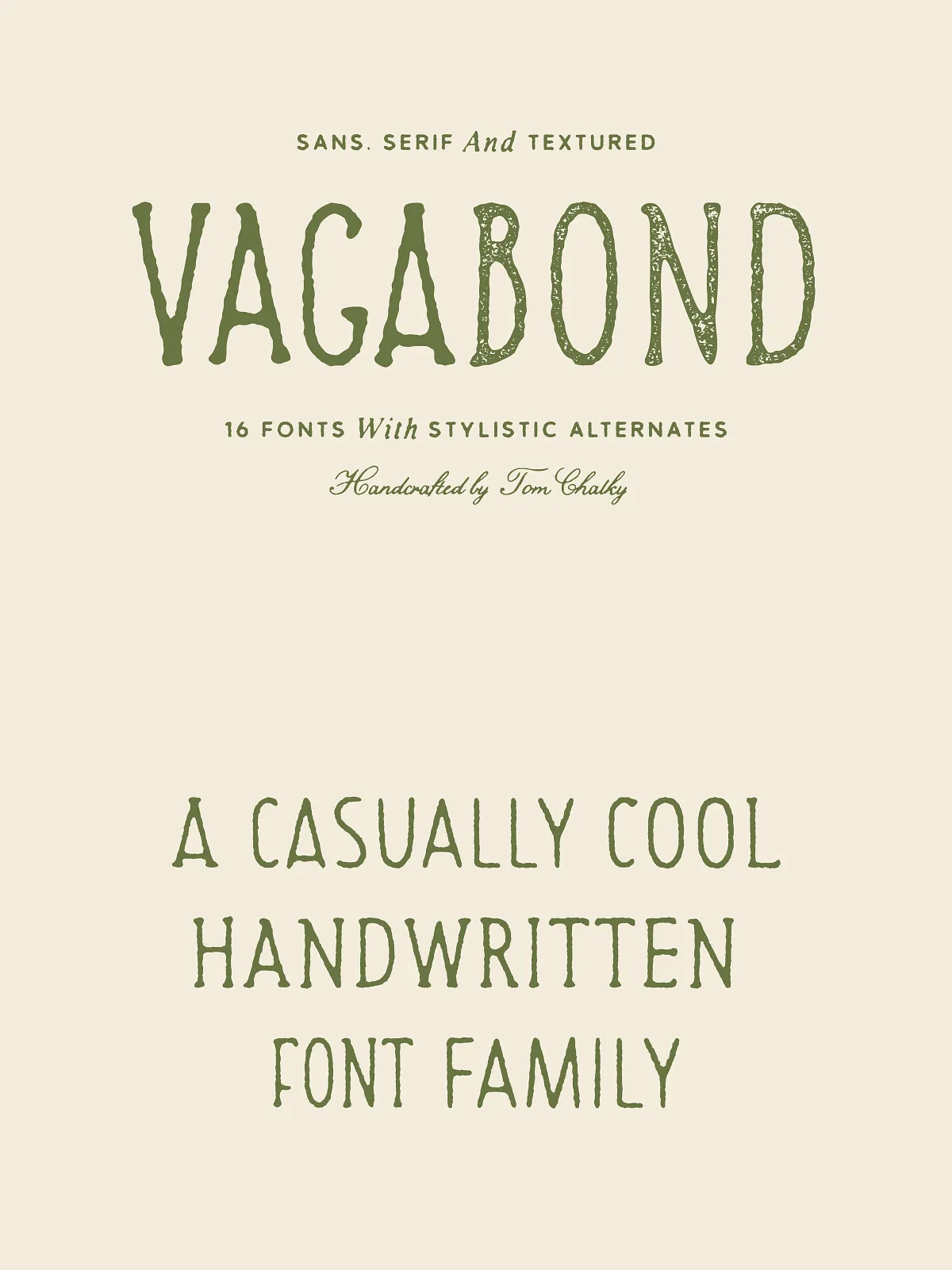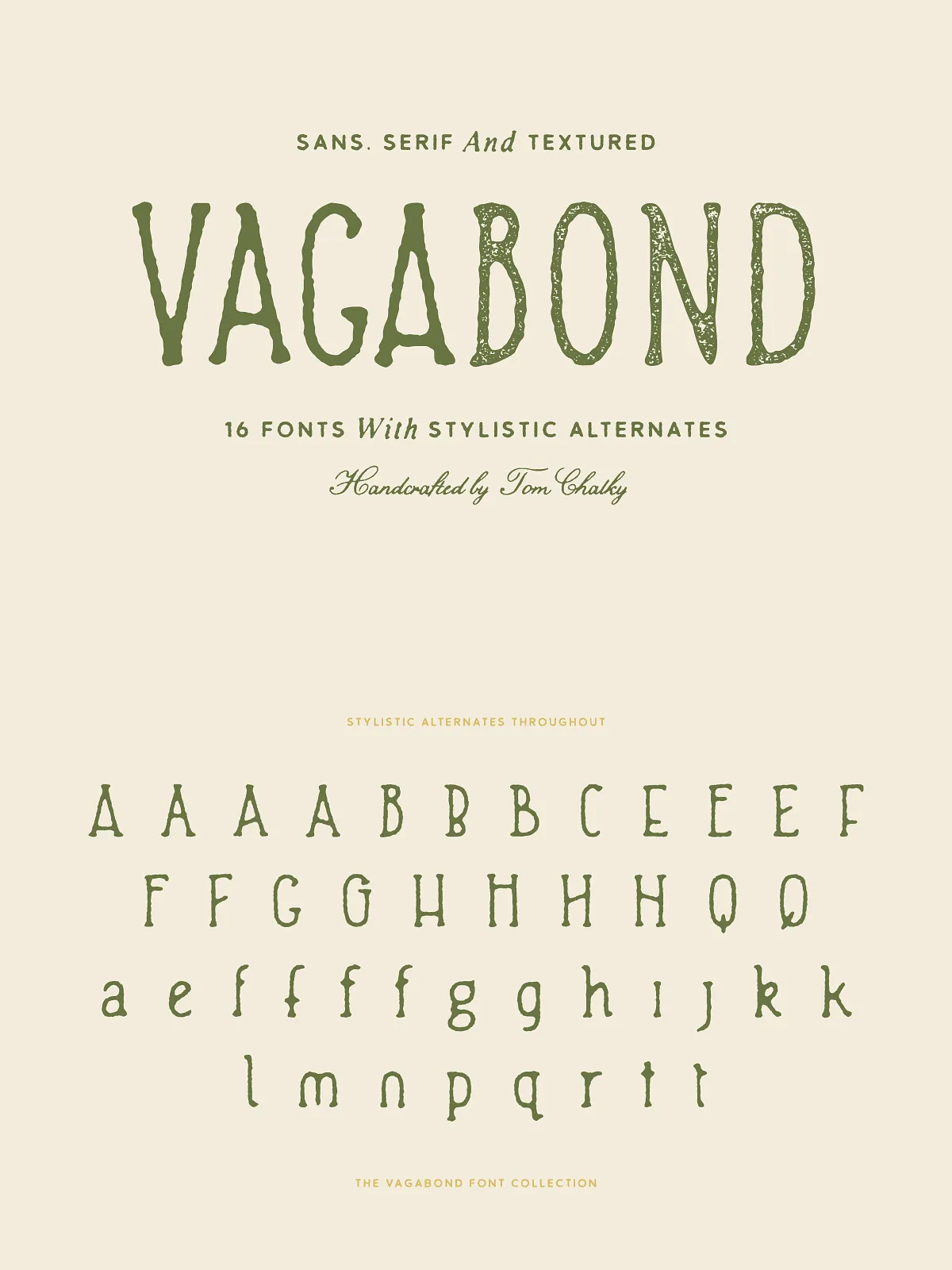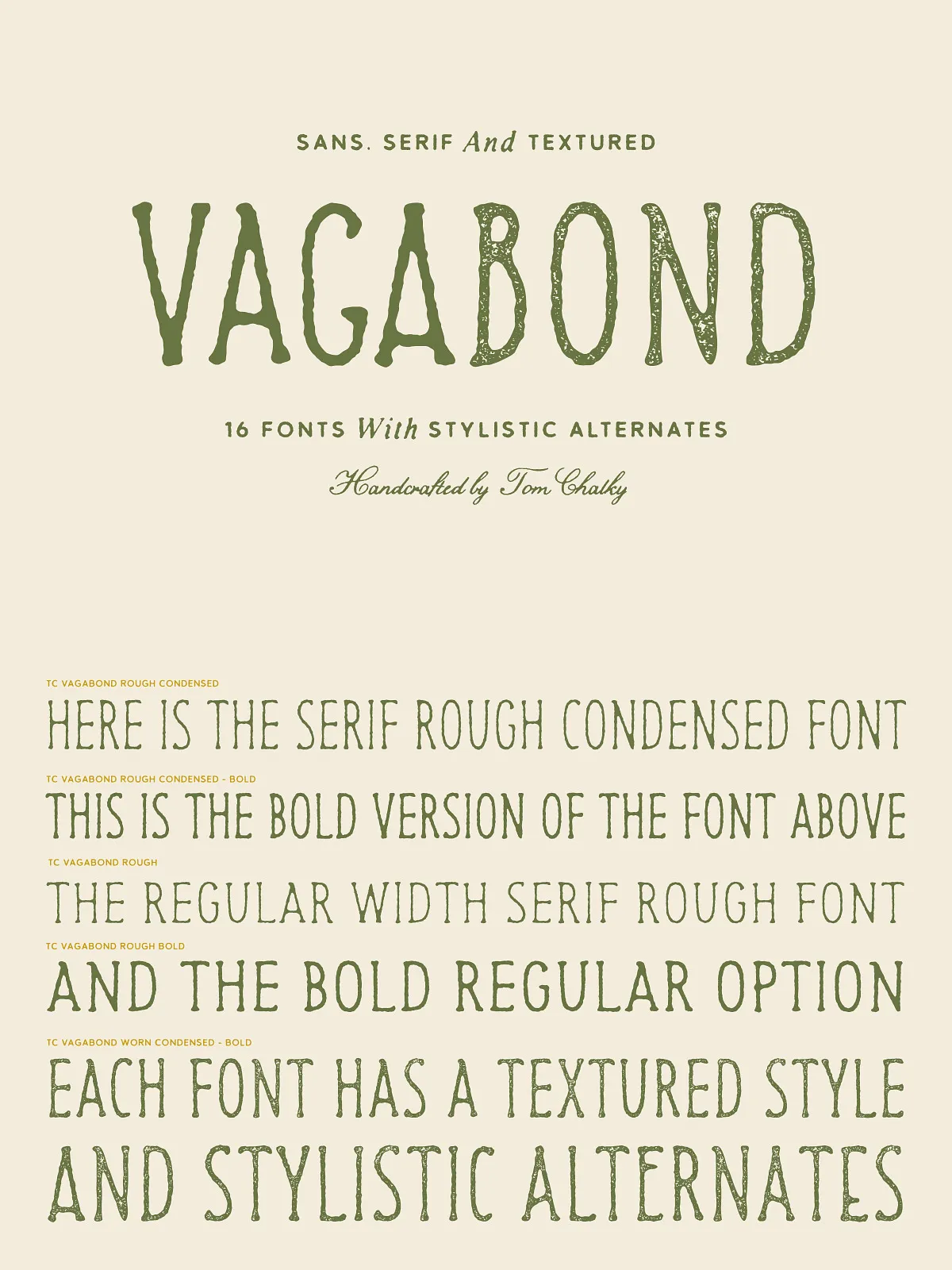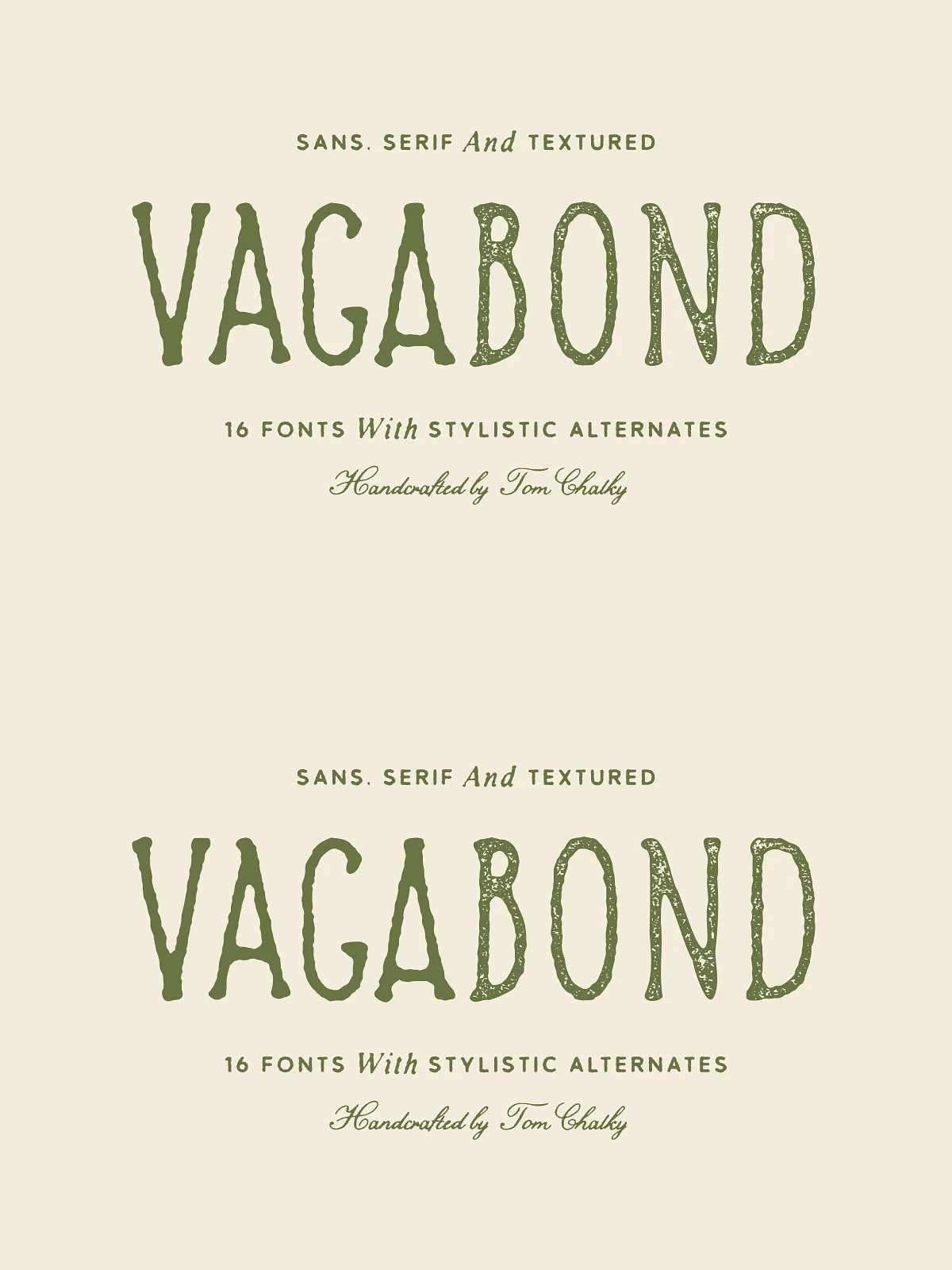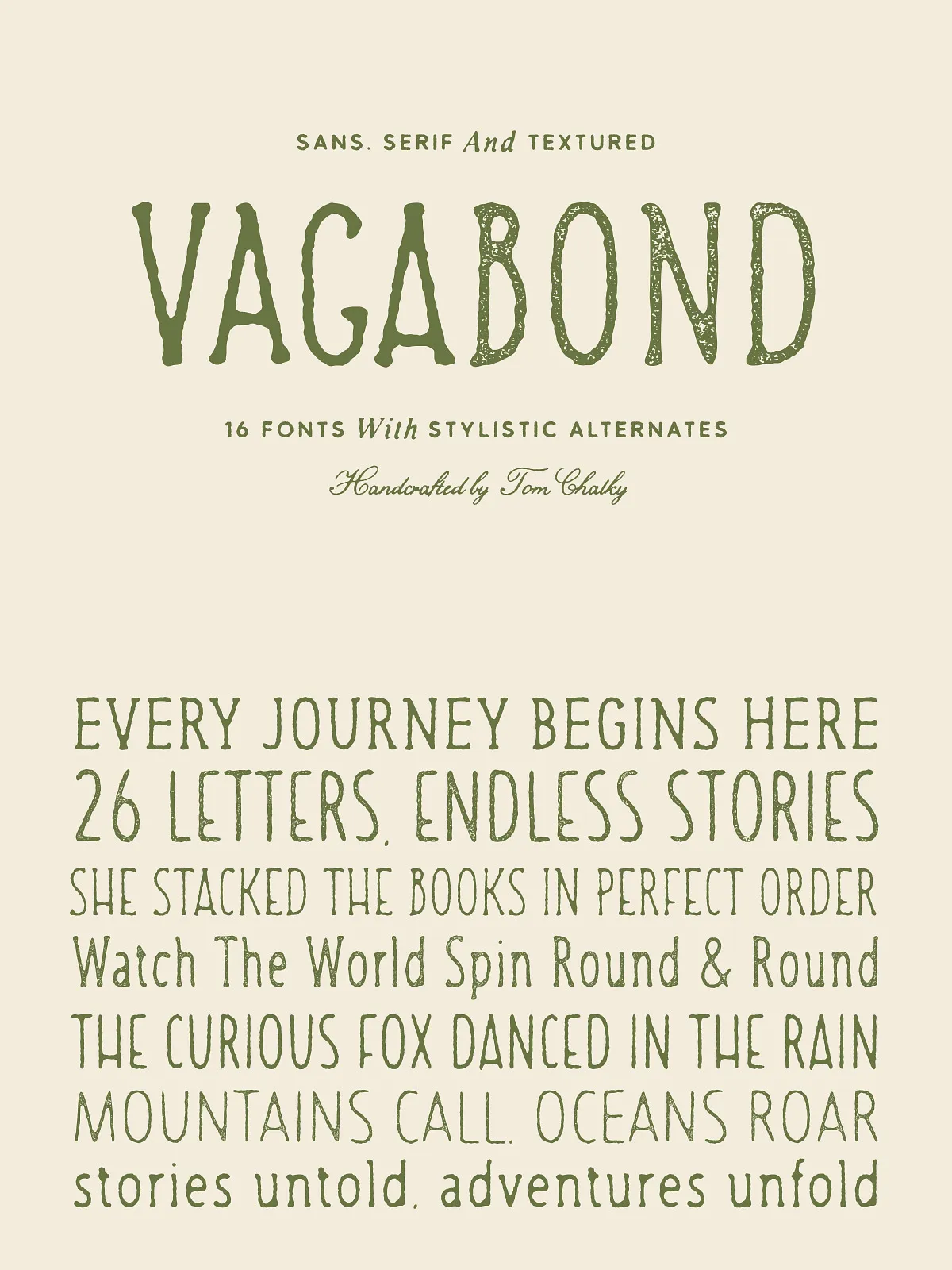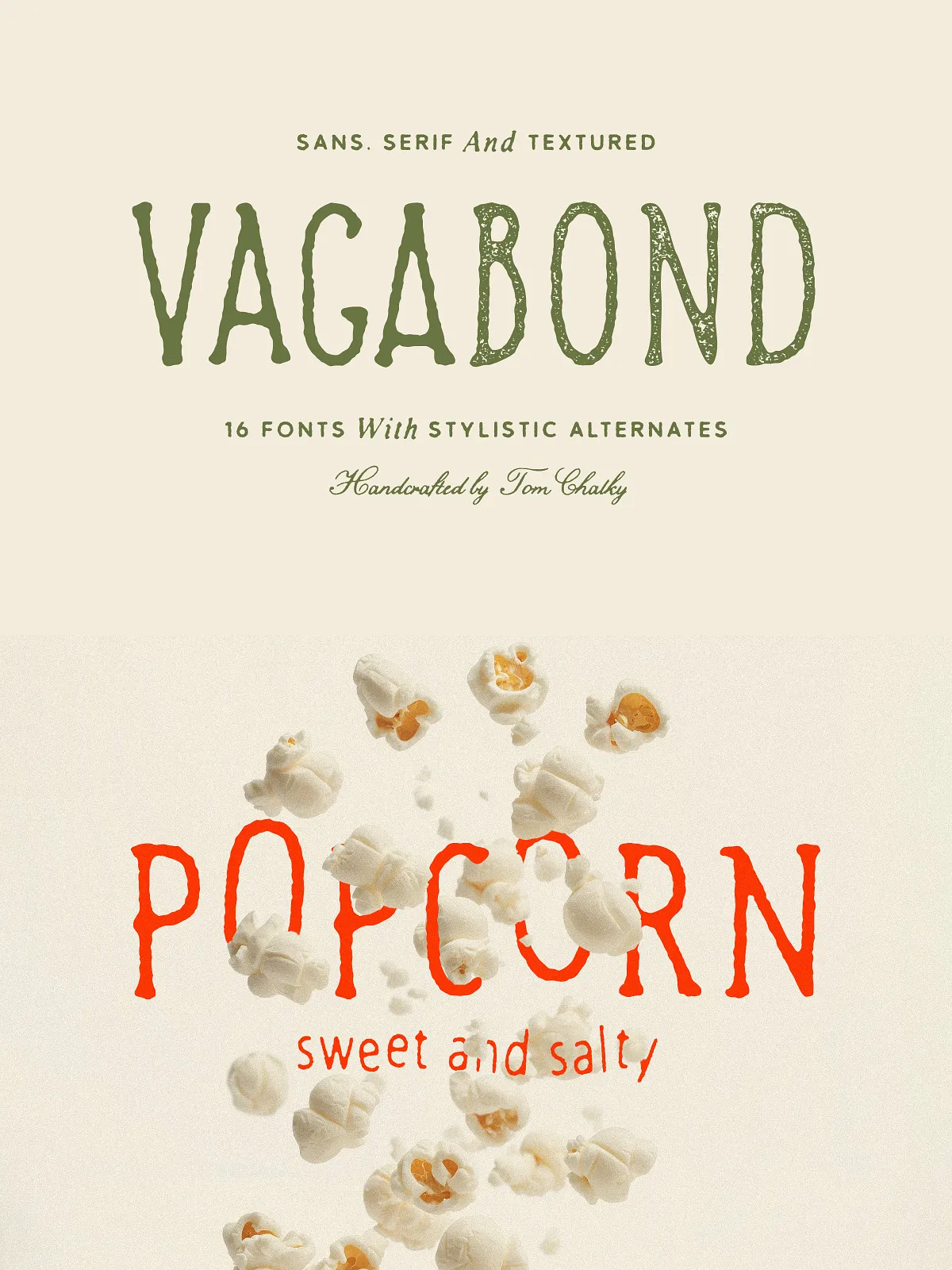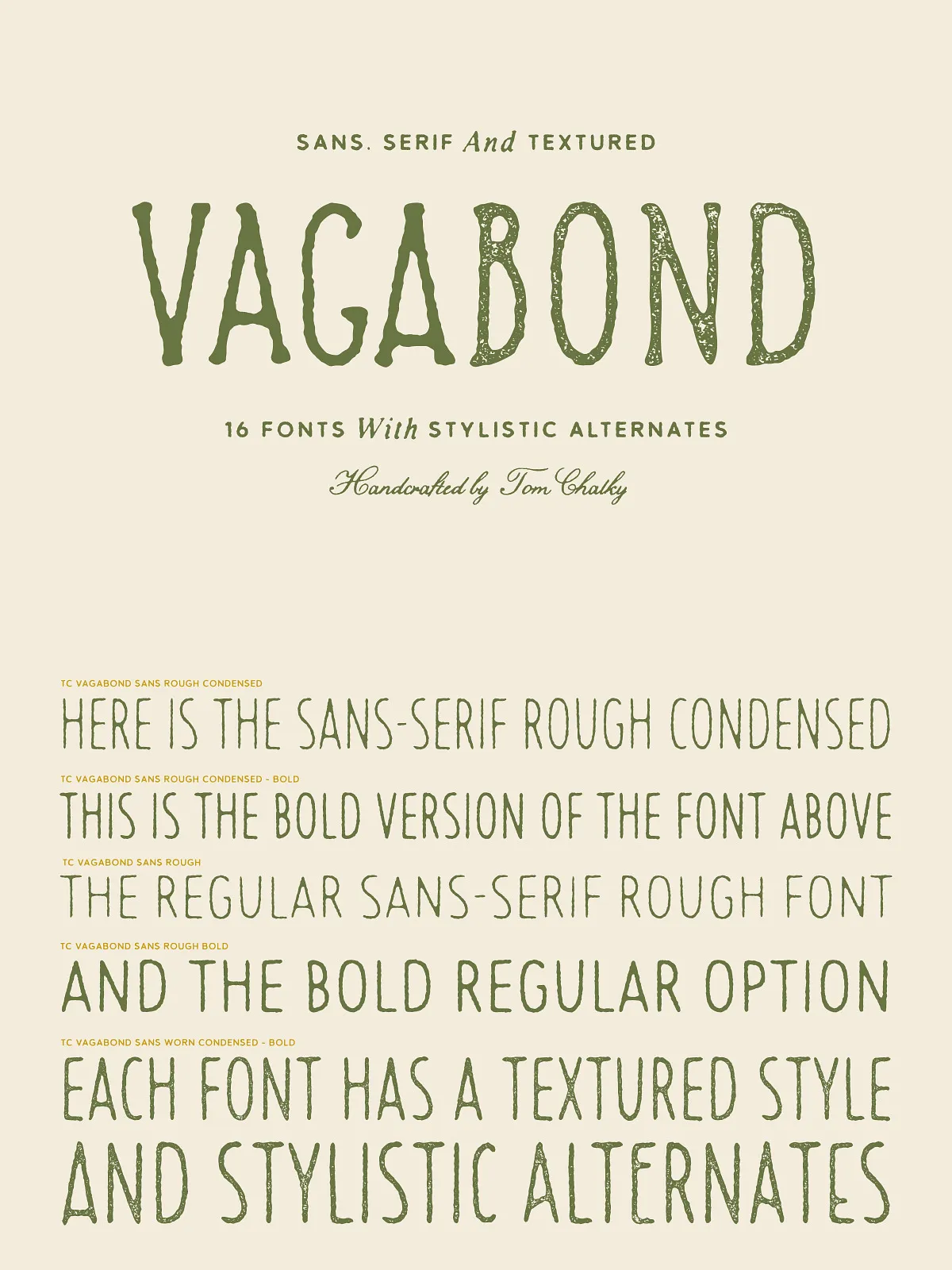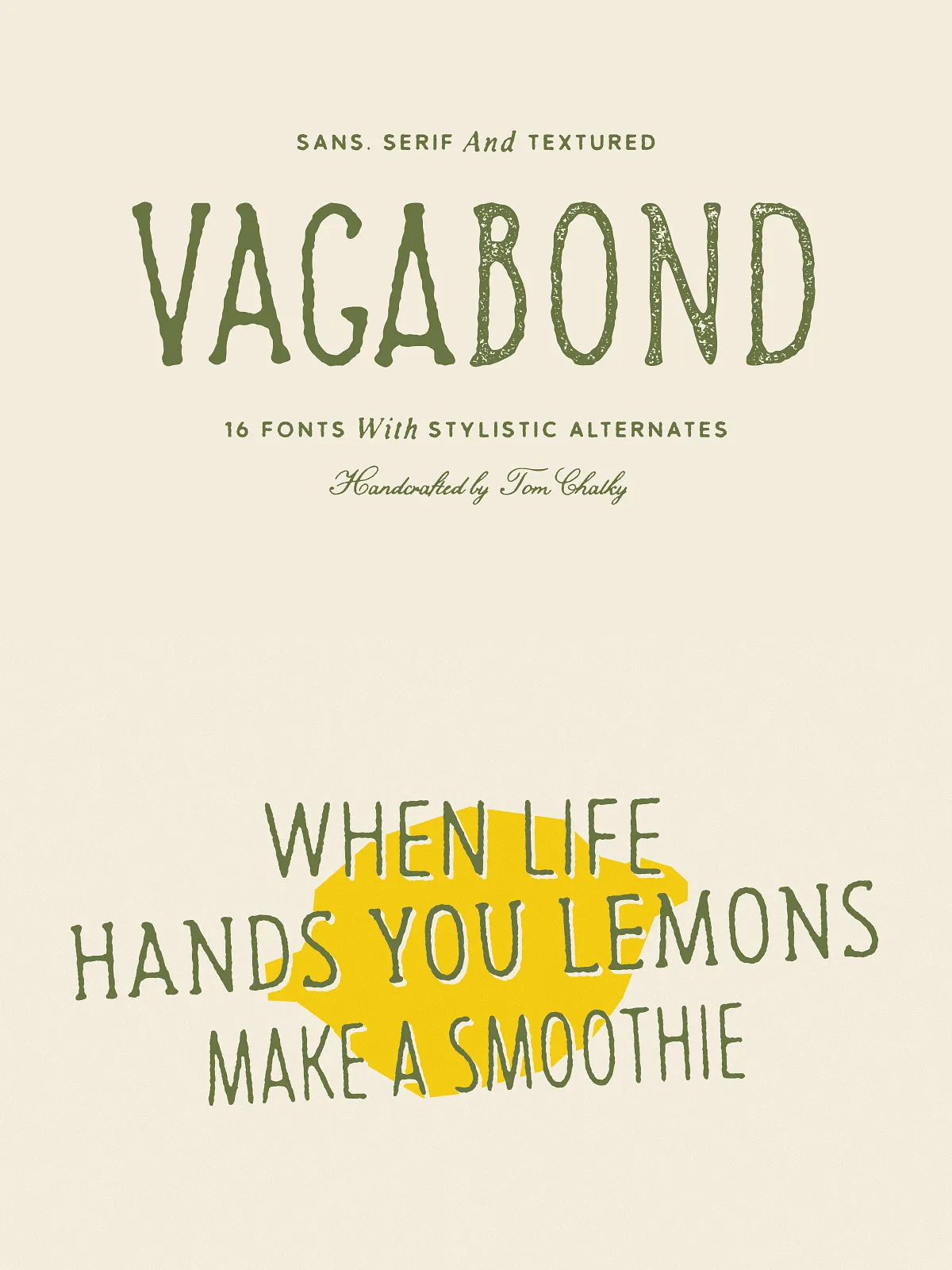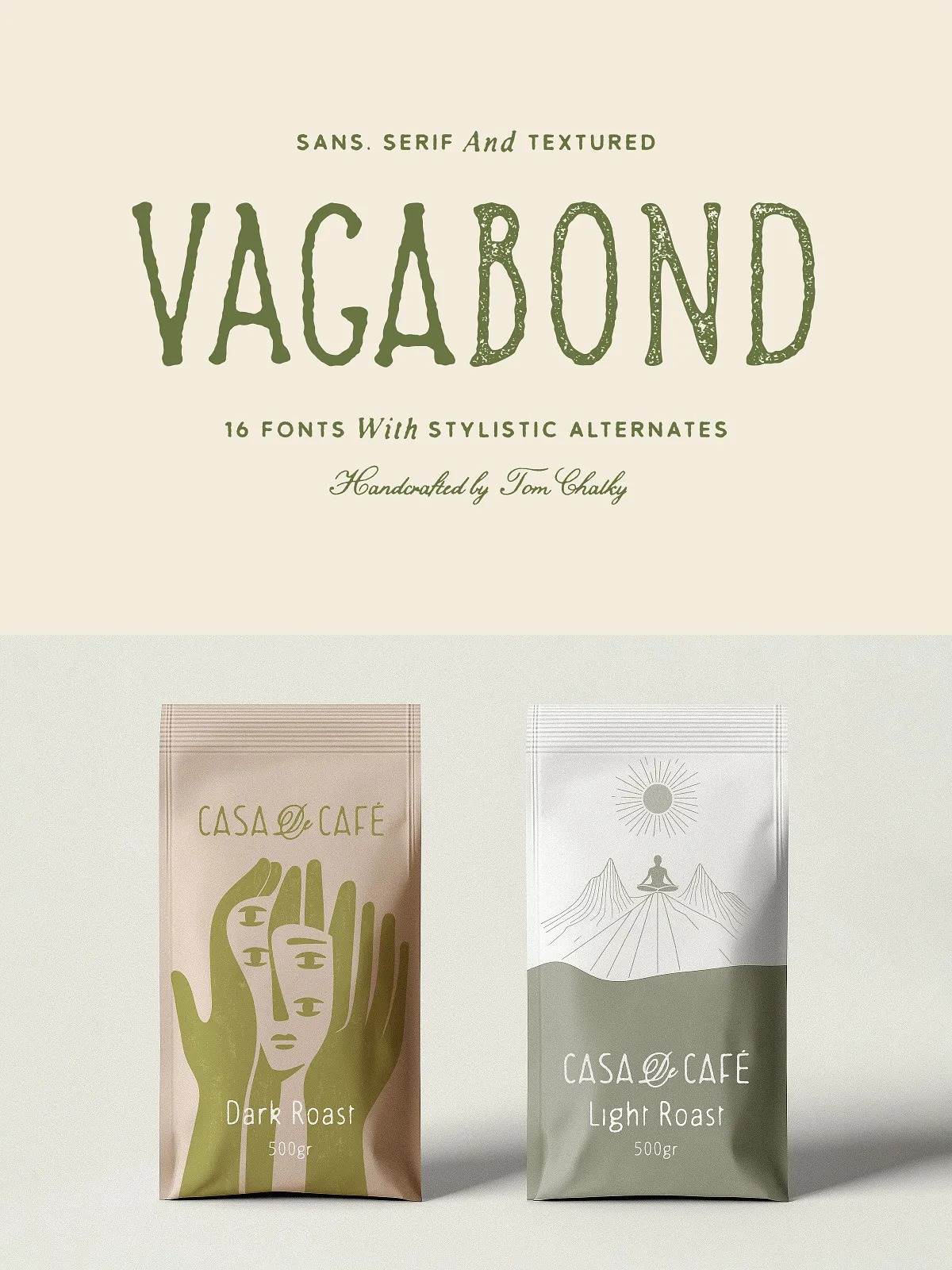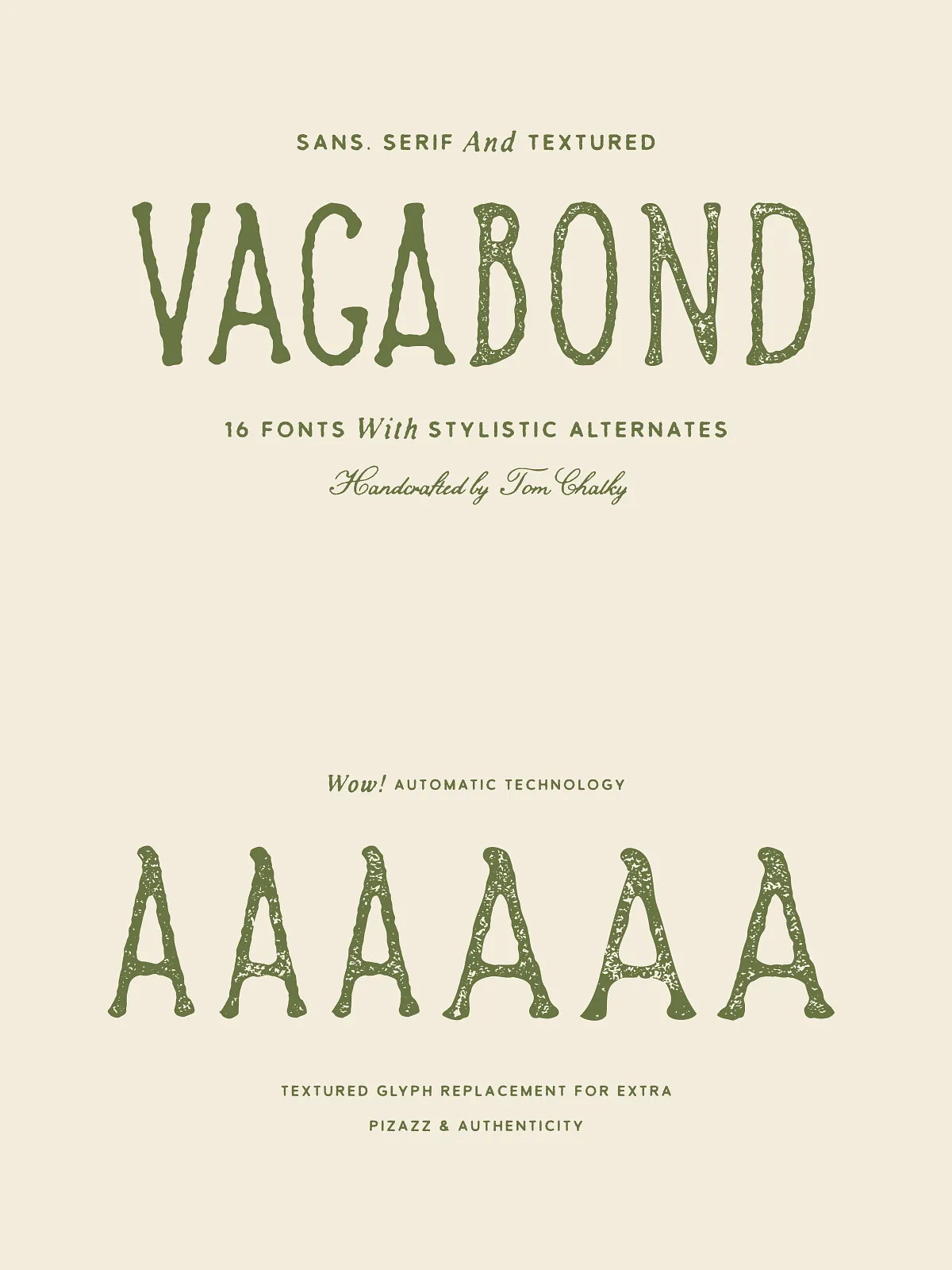
Introducing Vagabond – a playful and rugged font family that brings a rustic handcrafted vibe to adventurous design projects.
With weathered characters and effortless charm, Vagabond is perfect for projects that call for authenticity and whimsy. Whether you’re crafting eye-catching headlines, designing food packaging, or adding flair to your next event poster, this family of 16 fonts offers both versatility and personality in spades.
Each font in the Vagabond collection includes stylistic alternates for added authenticity, giving you a little extra spontaneity. The texture variations will automatically switch as you type, ensuring no two letters look exactly alike! (Simply activate contextual ligatures and let the font do its magic)
16 Handcrafted Fonts – Worn and Textured Sans and Serif Styles
Automatic Textured Glyph swapping for both letters and numbers to keep things dynamic
Perfect for posters, packaging, branding, and adventure-themed designs
Let Vagabond take your designs on a journey—whether you’re aiming for an adventurous aesthetic or a relaxed, hand-drawn look.